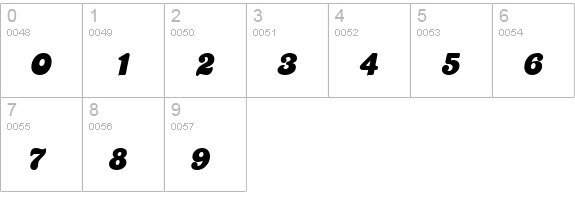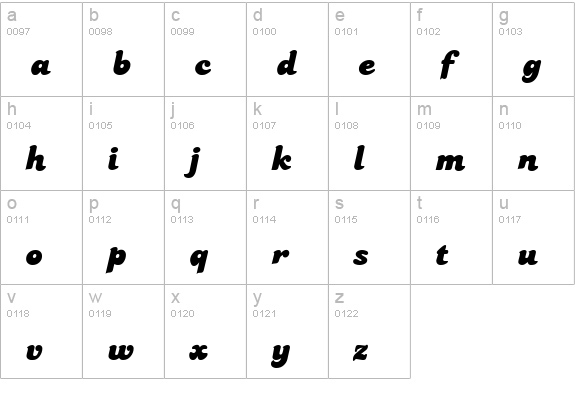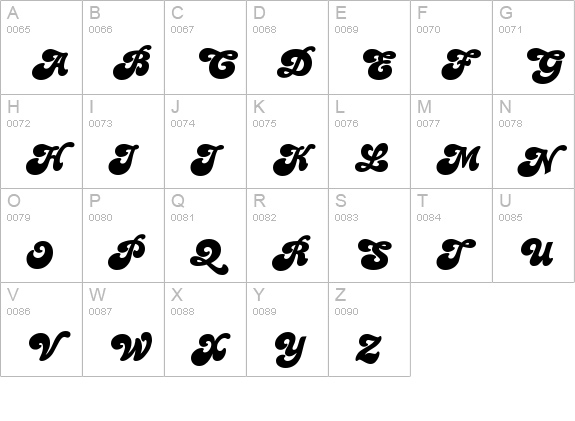
Pauline Font Details
Pauline font is a stunning and elegant typeface that exudes sophistication and class. With its graceful curves and stylish flourishes, this font is perfect for adding a touch of luxury to any design project. Whether you're creating wedding invitations, branding materials, or elegant packaging, Pauline font is sure to make a statement. The best part? Pauline font is completely free to download at FontsMarket.com. That's right, you can add this gorgeous font to your collection without spending a dime. Don't miss out on the opportunity to elevate your designs with the timeless beauty of Pauline font. Download it today and start creating stunning projects that will leave a lasting impression.